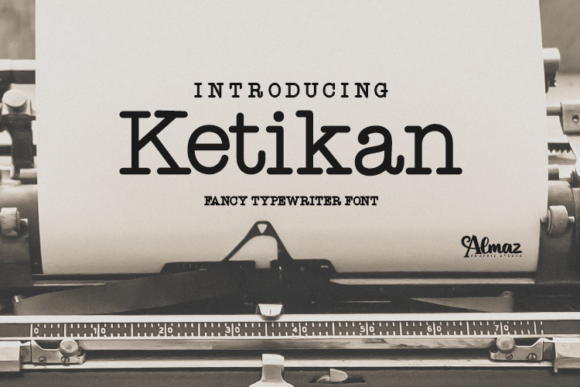
Introducing Ketikan Font, the display font family created by the talented almazstd24. If you're looking for a creative and unique solid typewriter font, Ketikan is the perfect solution. This font is the perfect blend of simplicity and authenticity that will add a touch of originality to your designs.
Ketikan is not just any typewriter font. It's an alternative font that brings a fresh and modern twist to the classic typewriter feel. With its bold and solid appearance, Ketikan is sure to catch the eye of anyone who sees it. Its creative design combines the simplicity of typewriting stains, giving your designs an authentic and original look.
Whether you're designing a book cover, a poster, or a website, Ketikan is the perfect choice. This font will add a touch of uniqueness to your design, making it stand out from the rest. With its vintage and classic appeal, Ketikan is perfect for creating a retro or vintage feel in your designs.
Using Ketikan Font is easy and convenient. With its simple and legible design, your text will be easy to read, and your message will be clear. You won't have to worry about your text getting lost in the design. Instead, it will enhance your message and make it more memorable.